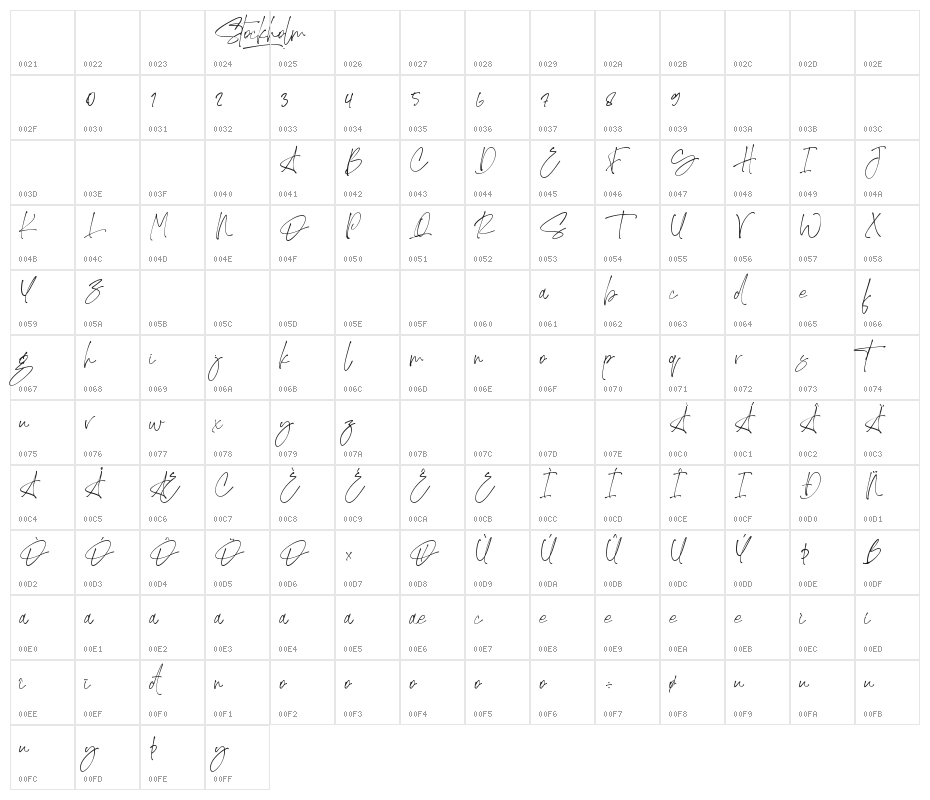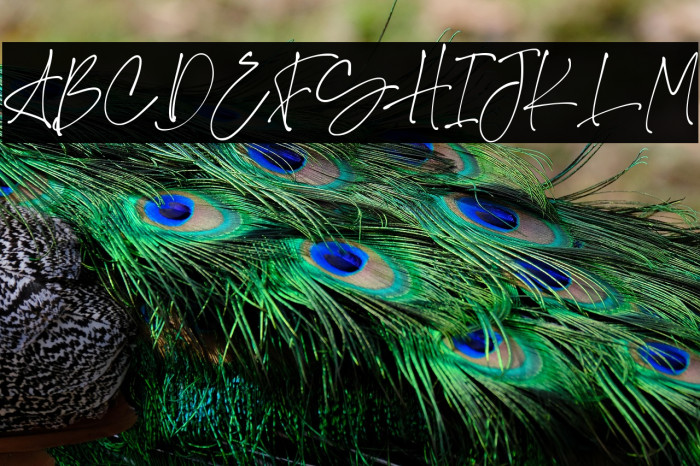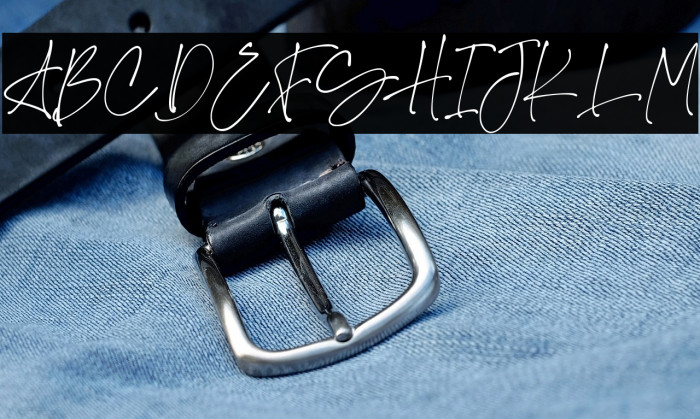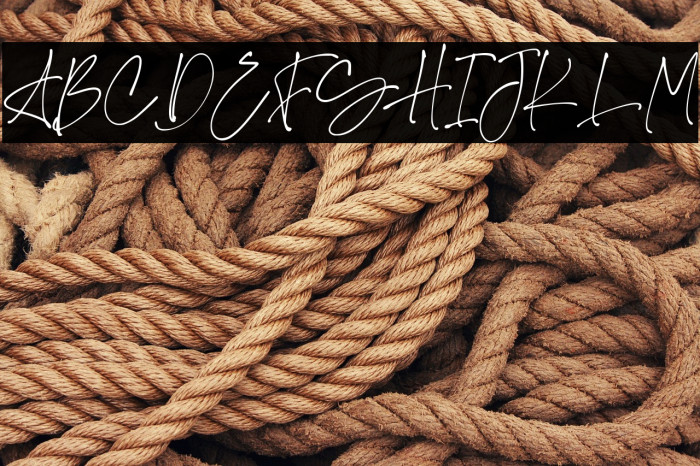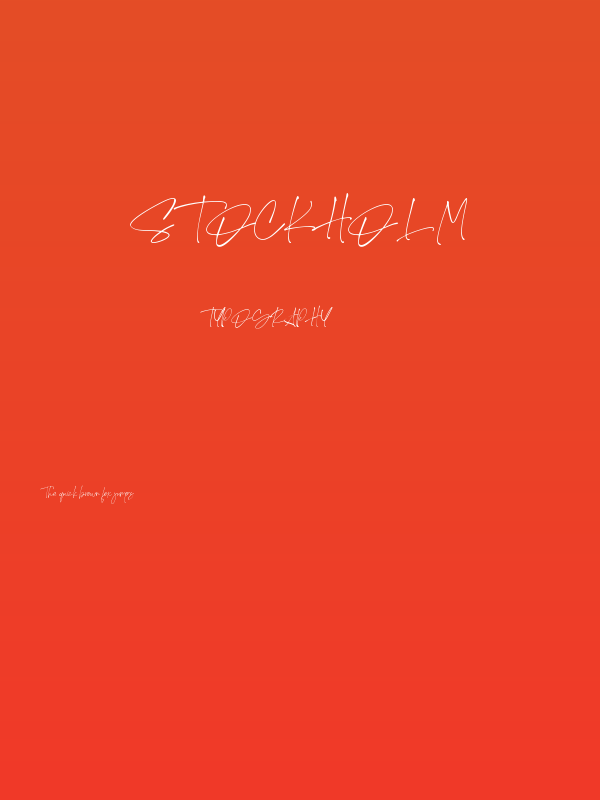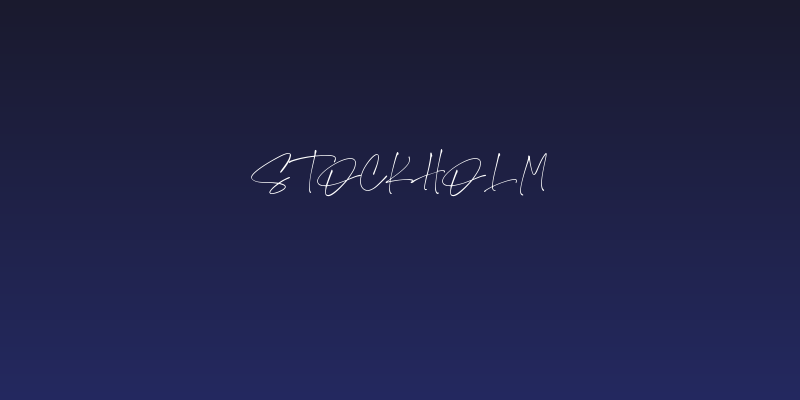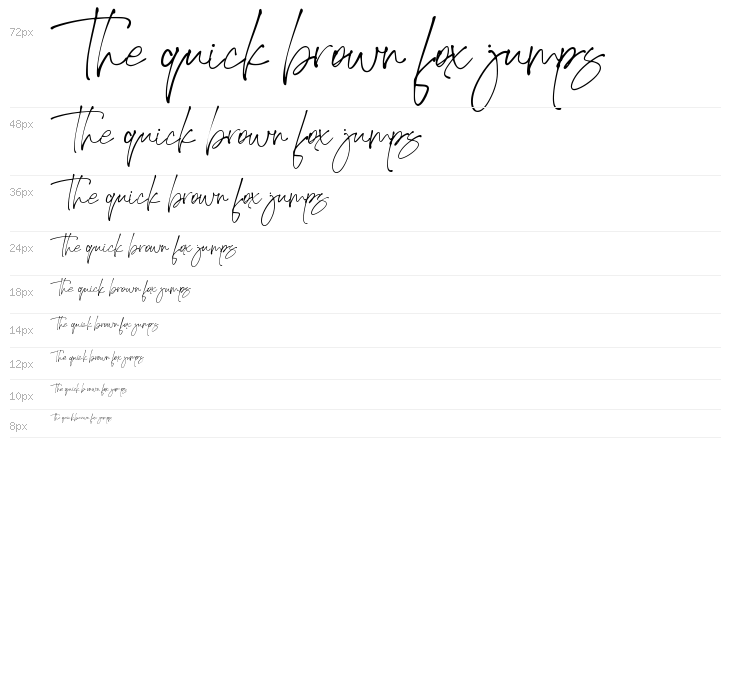
Stockholm Font
Stockholm Description
This font exhibits a dynamic and fluid handwritten style, characterized by its elegant and flowing script. The letters are interconnected with smooth, sweeping curves, giving it a personal and artistic touch. The uppercase letters are bold and expressive, while the lowercase letters maintain a consistent flow, enhancing the overall aesthetic. The numerals and special characters are crafted with the same attention to detail, ensuring a cohesive look across all elements. This font is perfect for projects that require a personal, yet sophisticated feel.
| Proposed Projects | Ideal for wedding invitations, personal branding, greeting cards, and artistic projects. |